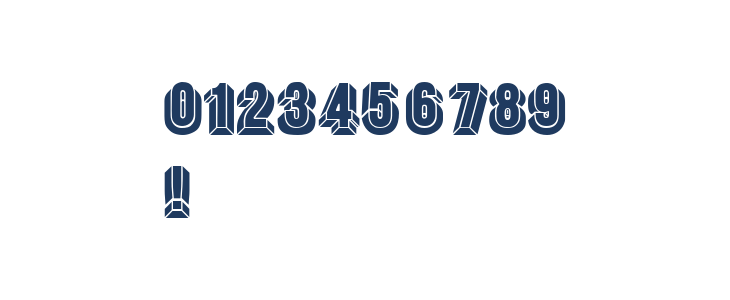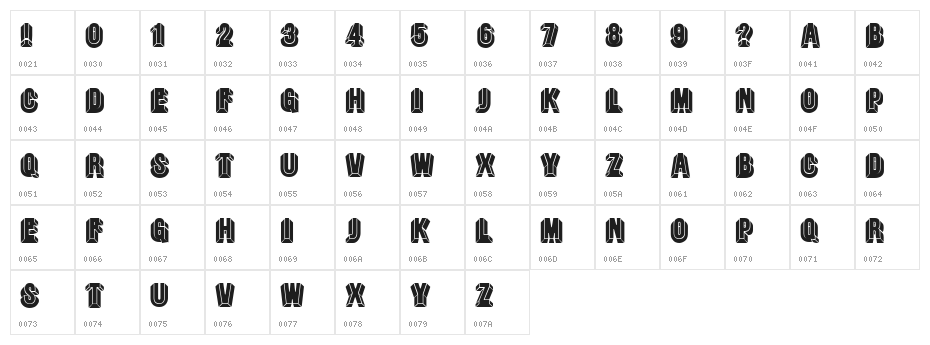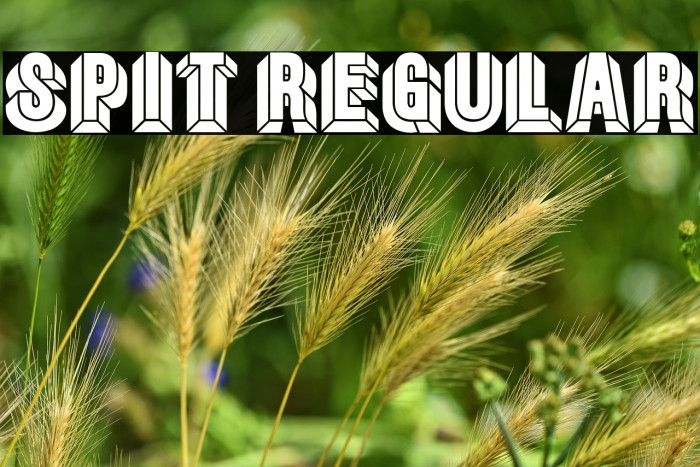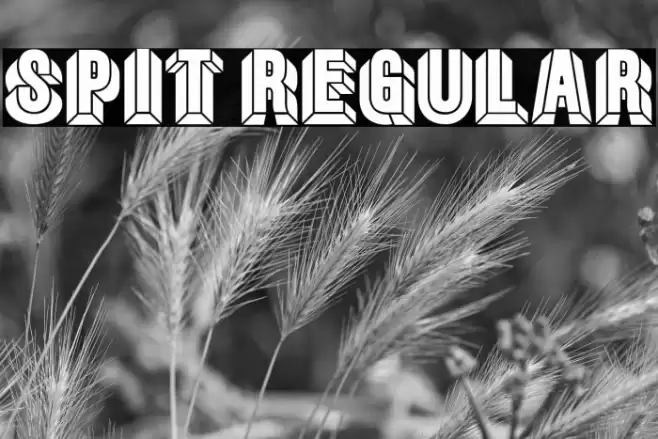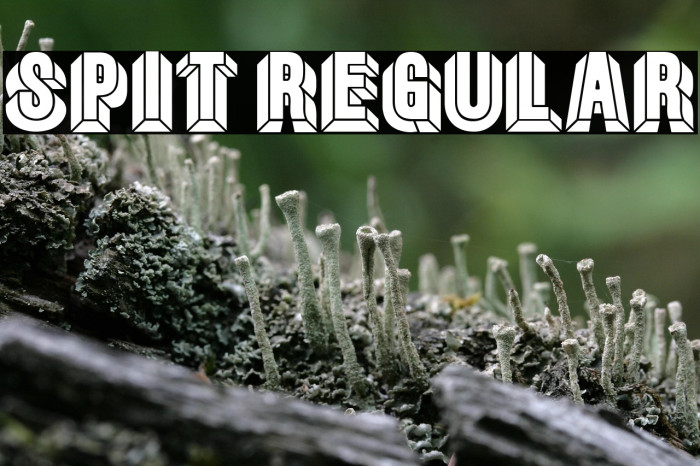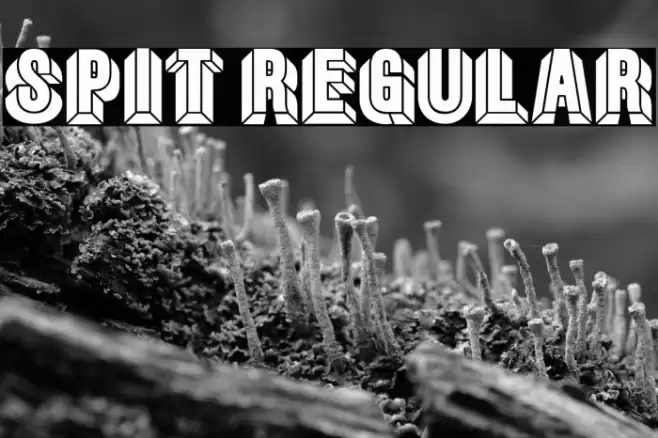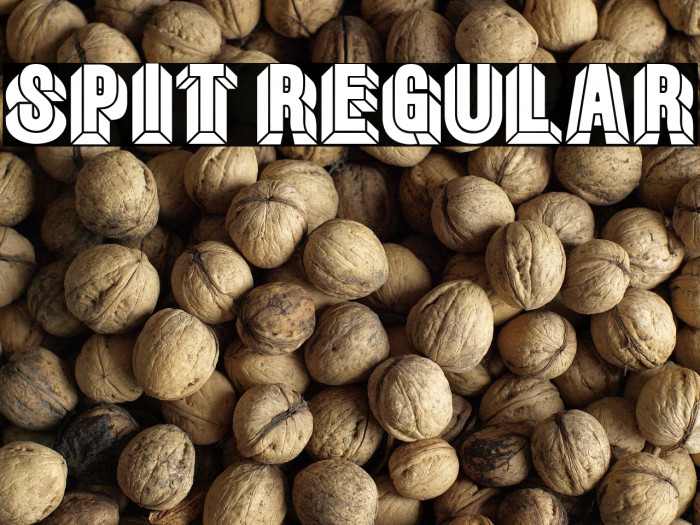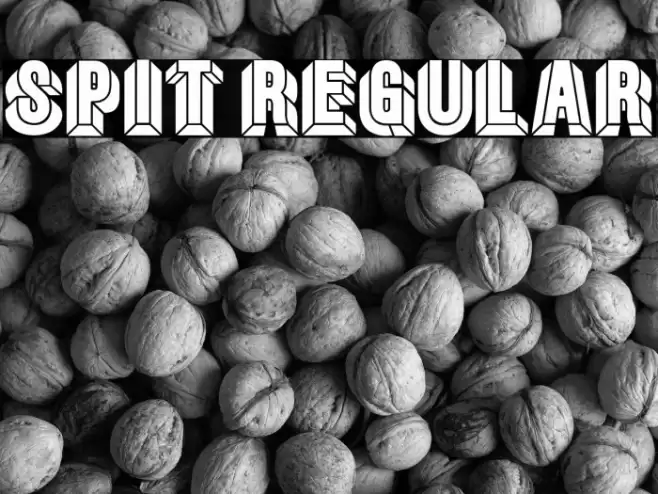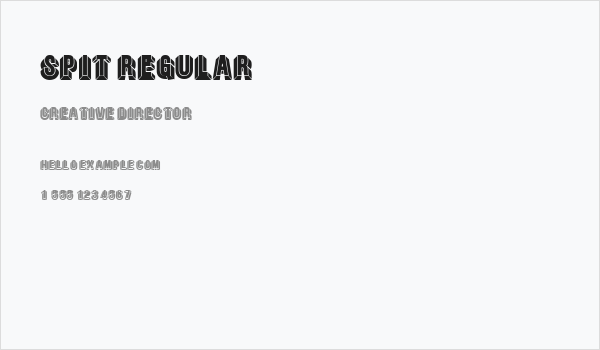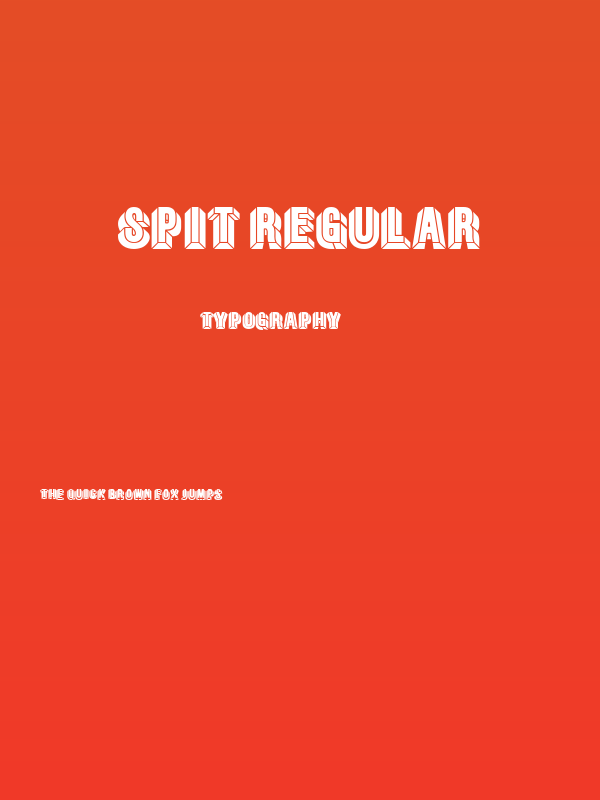
Spit Regular Font
Spit Regular Description
This font features a bold, three-dimensional design with a strong presence. Each character is crafted with a shadow effect that gives it a striking, block-like appearance. The letters are uppercase, with a uniform width and height, creating a cohesive and balanced look. The numbers and exclamation mark follow the same style, ensuring consistency across all characters. The font's boldness and geometric style make it ideal for attention-grabbing headlines and titles.
| Proposed Projects | Ideal for posters, logos, and headlines that require a bold and impactful look. |